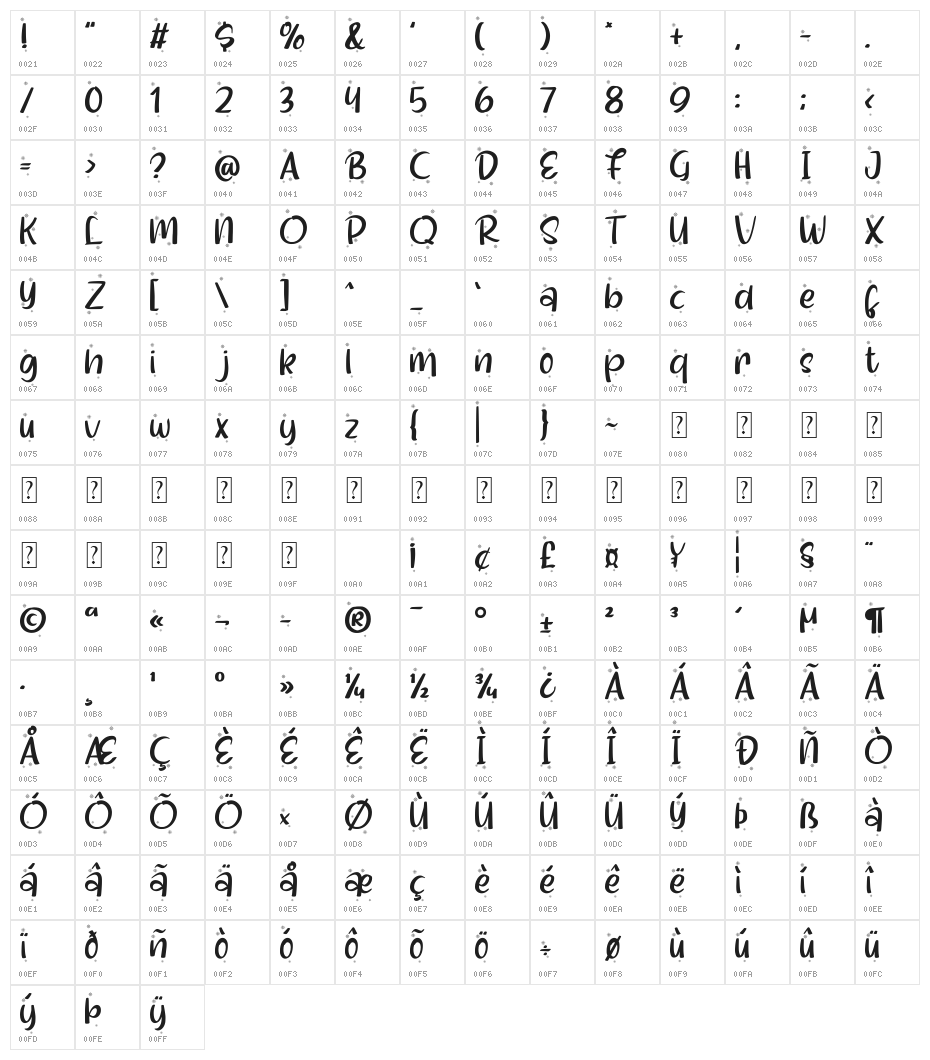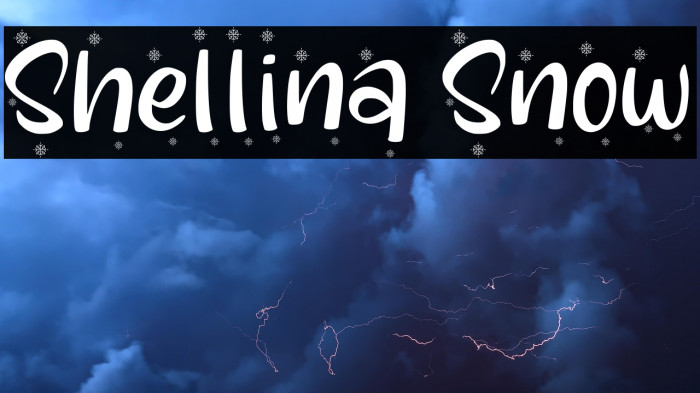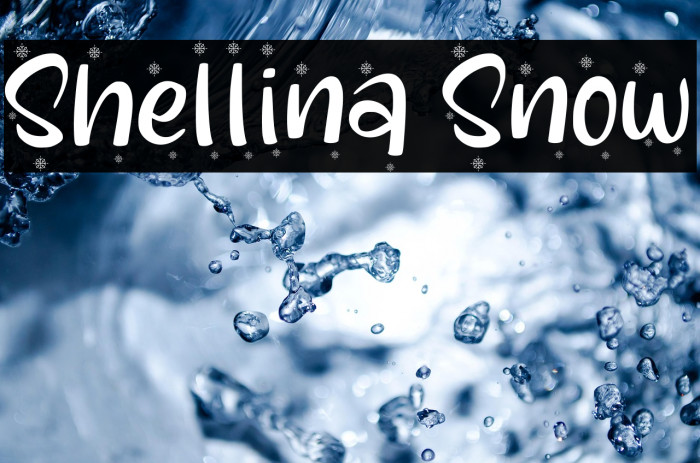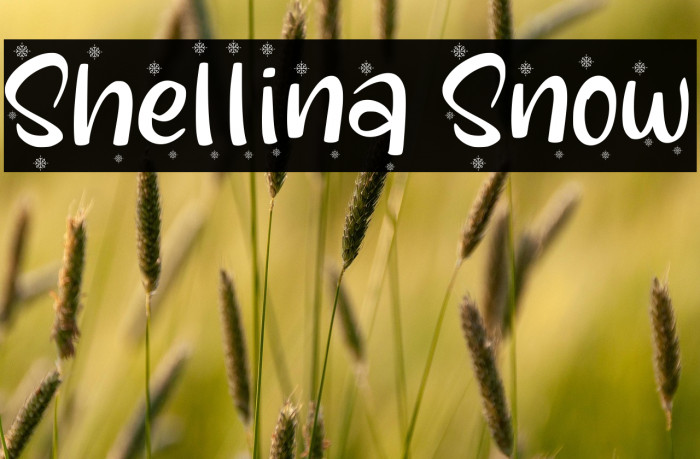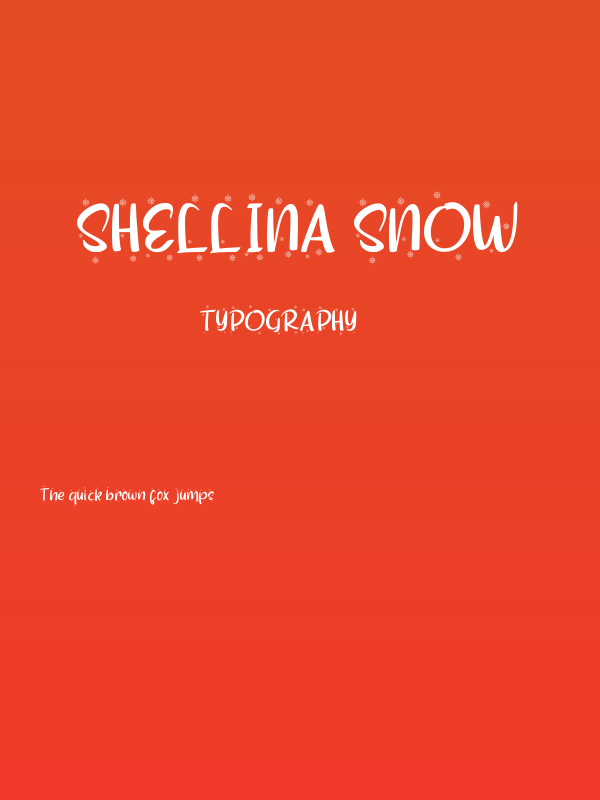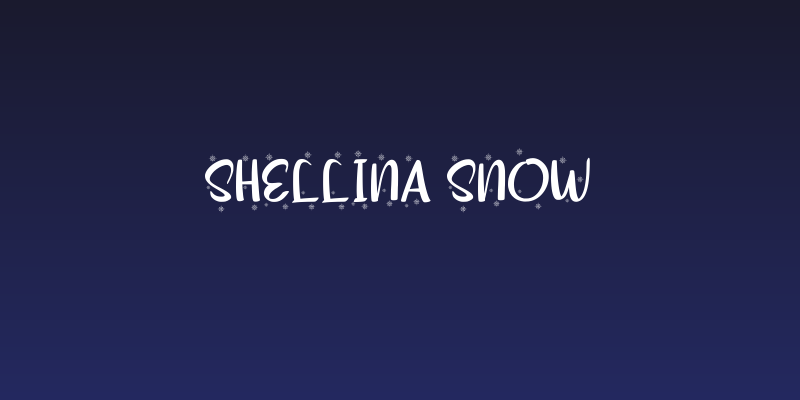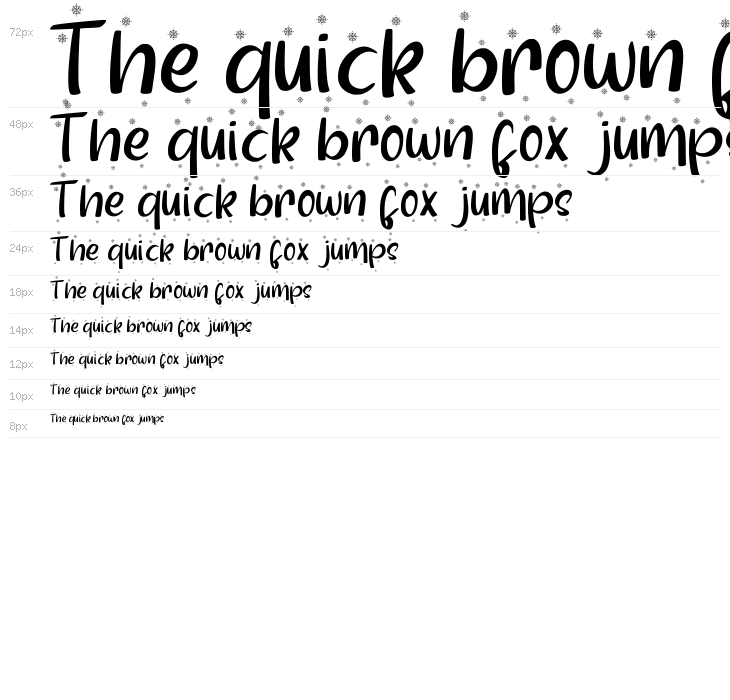
Shellina Snow Font
Shellina Snow Description
This playful and whimsical font features a handwritten style with a touch of winter charm, as evidenced by the subtle snowflake accents scattered throughout the characters. The letters are bold and rounded, with a smooth flow that mimics natural handwriting. The uppercase and lowercase letters maintain a consistent style, with slight variations that add to the font's organic feel. Numbers and special characters are included, each designed with the same playful aesthetic. The font's overall appearance is both festive and approachable, making it ideal for projects that require a touch of personality and warmth.
| Use Case | Headlines, Logos, Invitations |
| Proposed Projects | Ideal for holiday cards, winter-themed invitations, playful branding, and festive posters. |